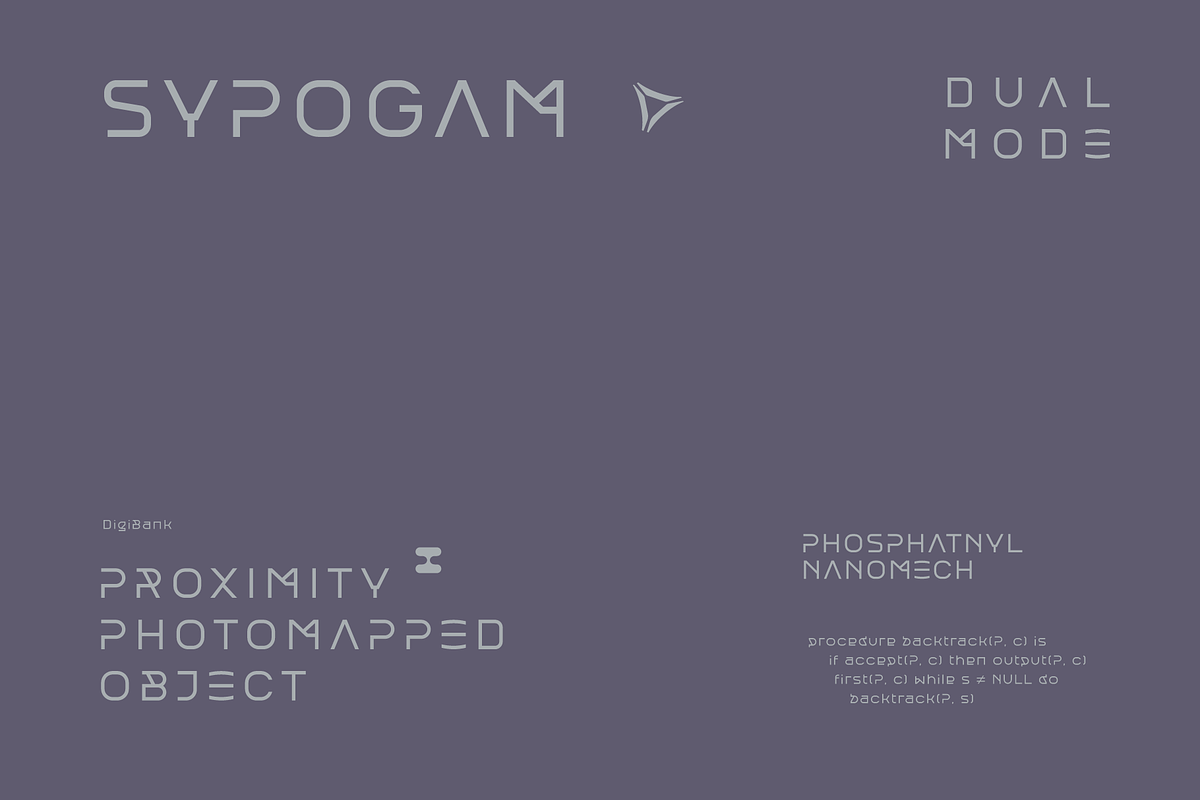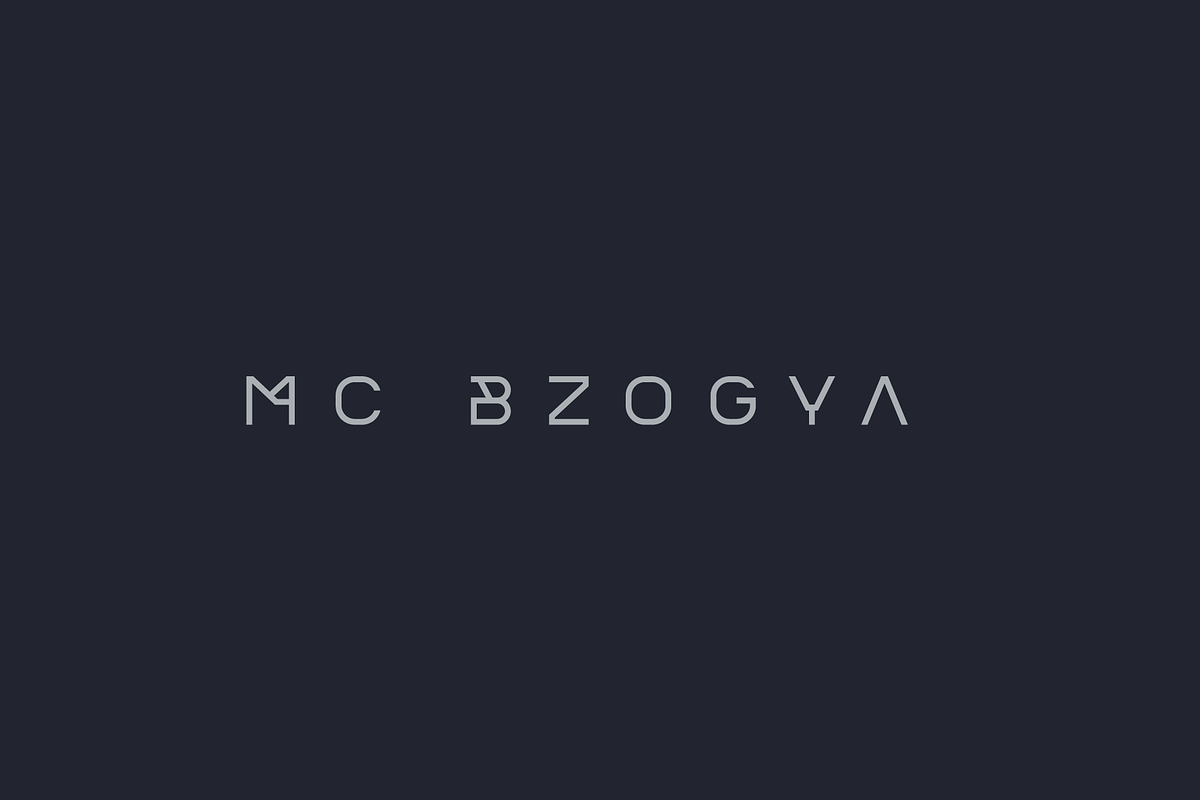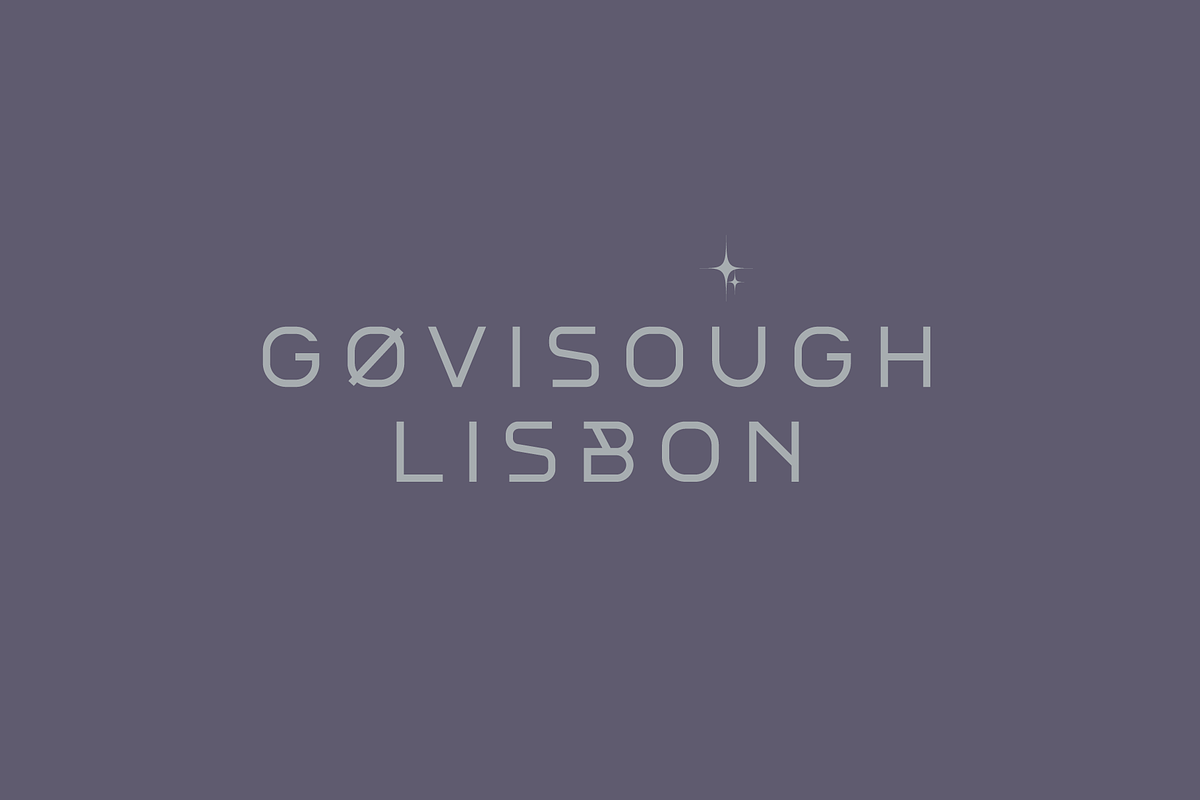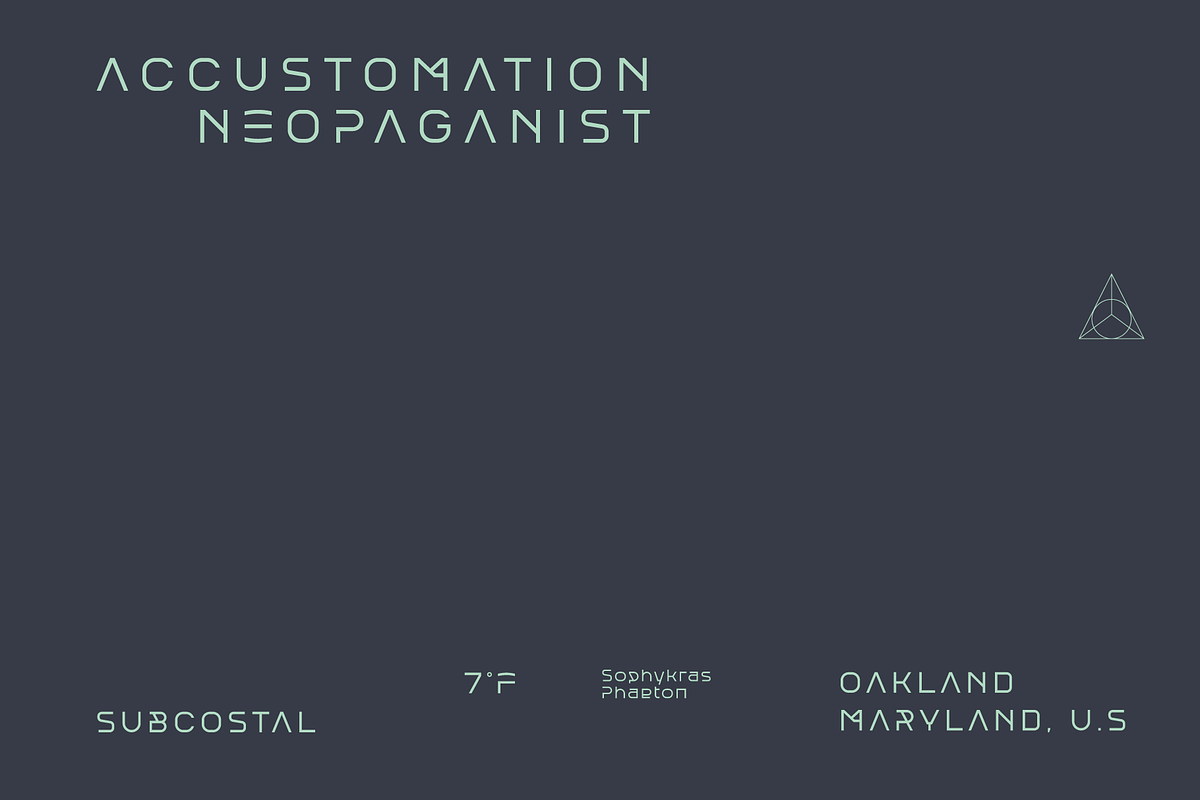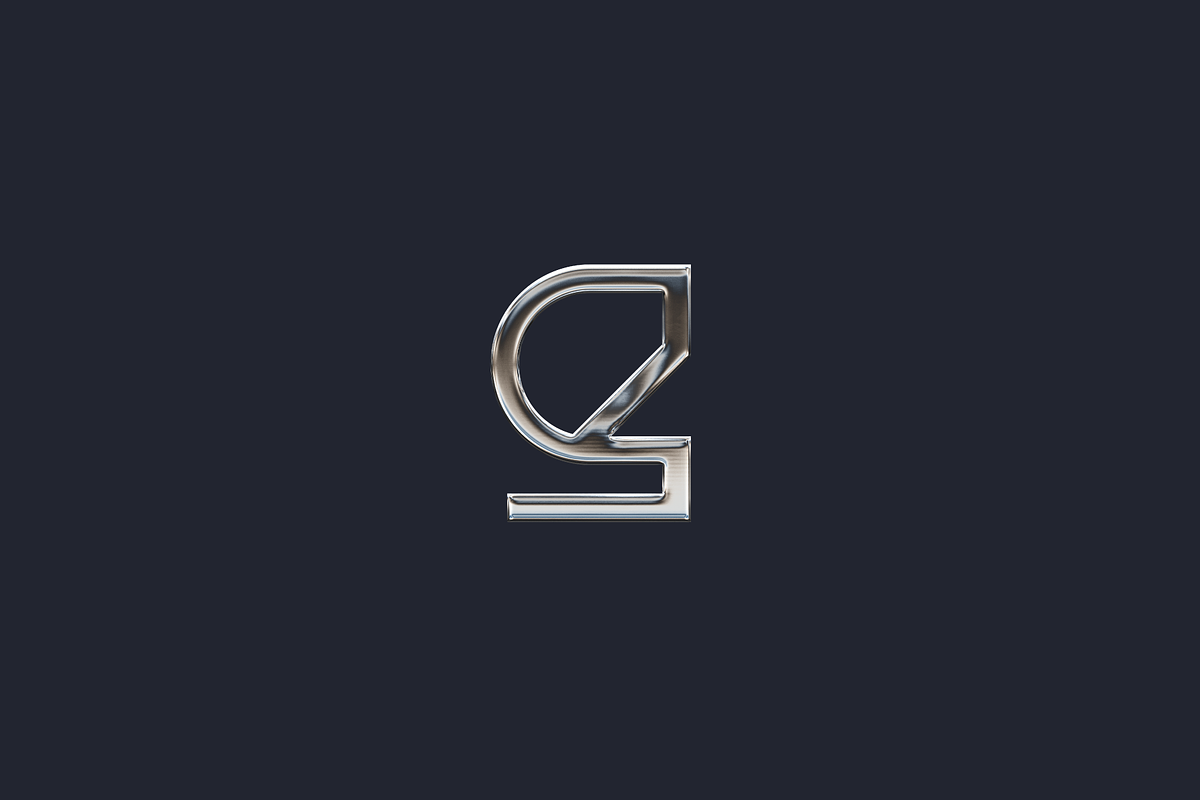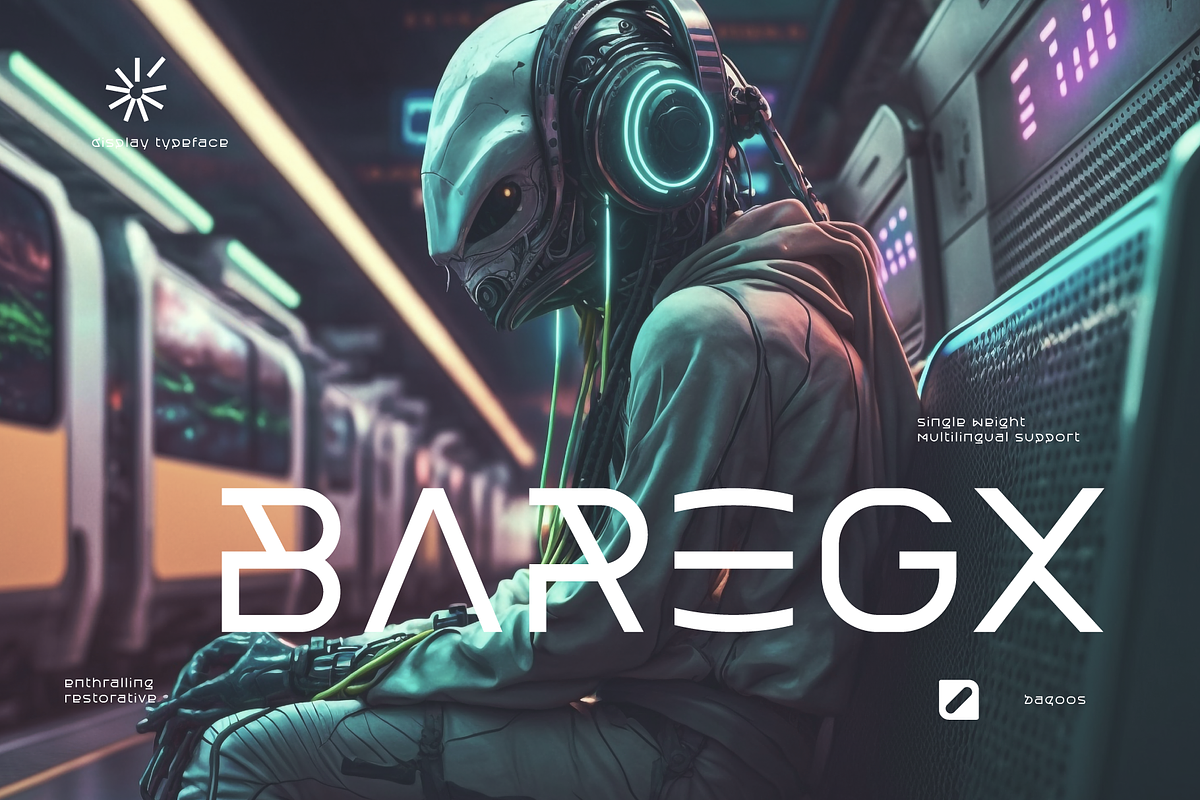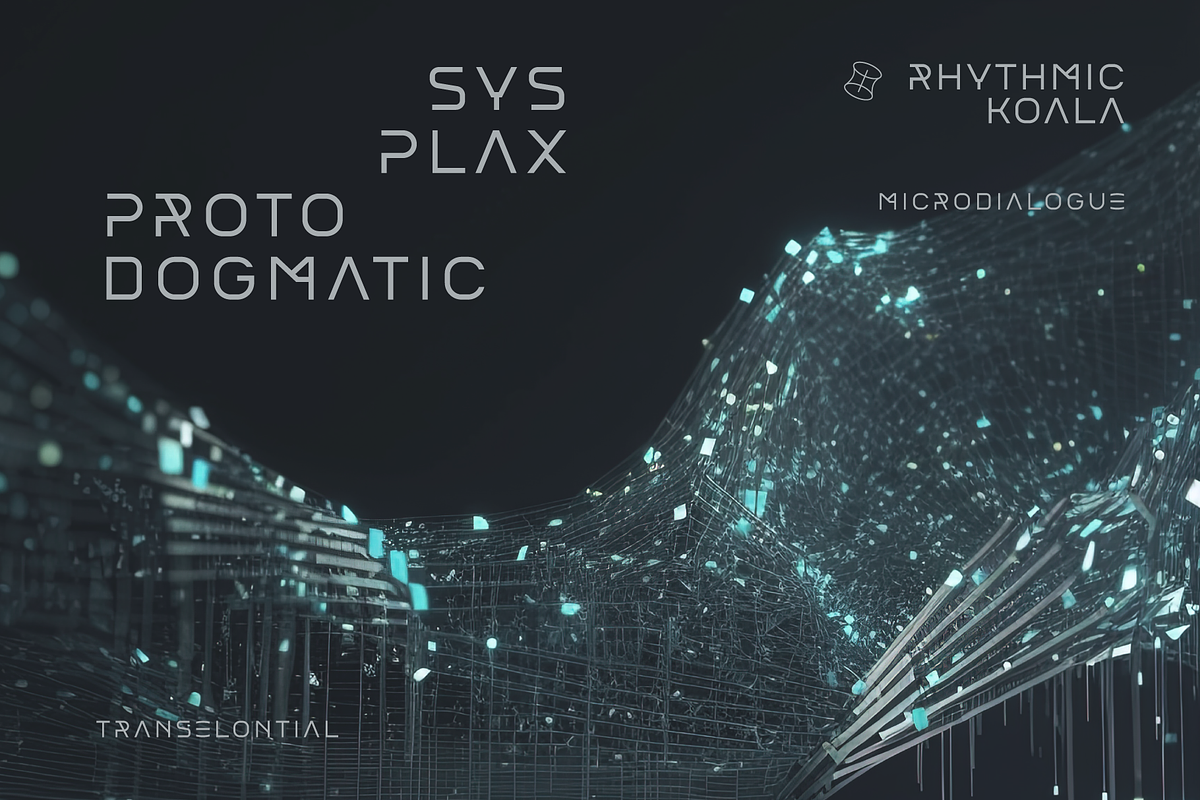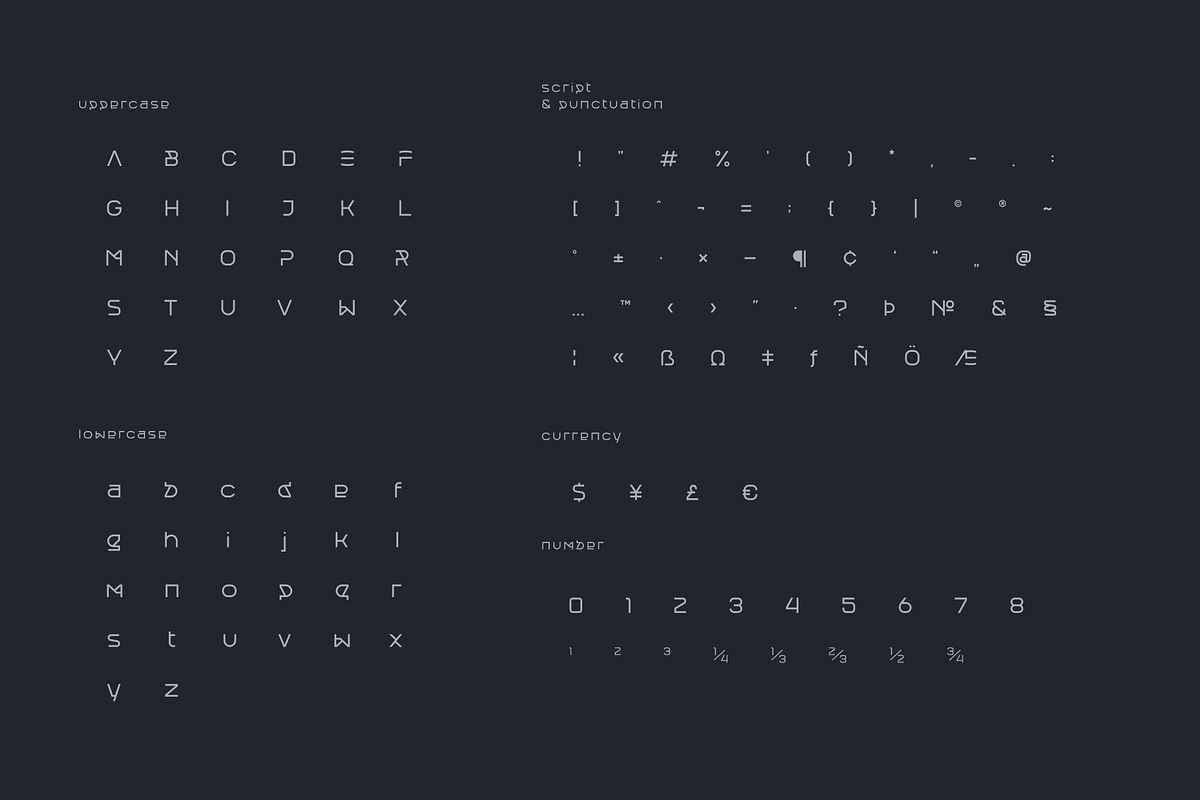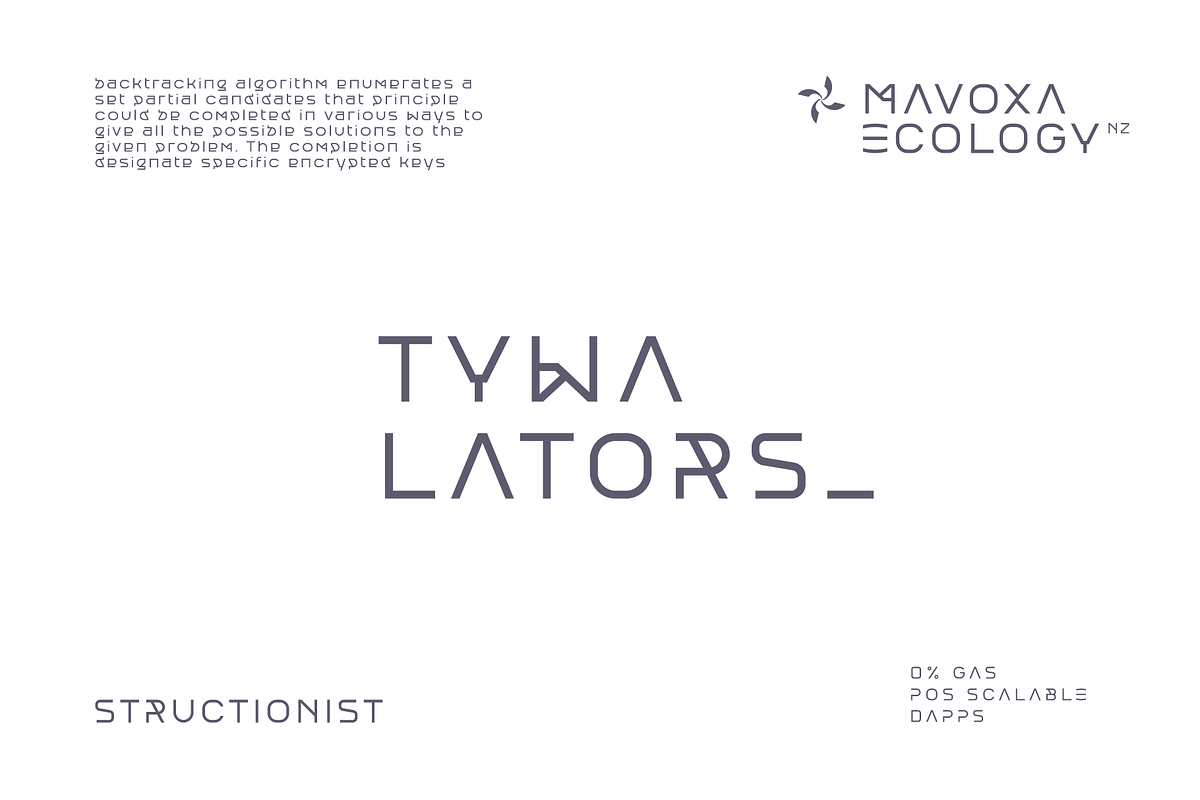
Baregx Futuristic Font
Baregx is an enthralling restorative mono lineal typeface apt for headline, editorial, branding, packaging, printed materials and typographic applications. 220+ glyphs including punctuation and numerical.